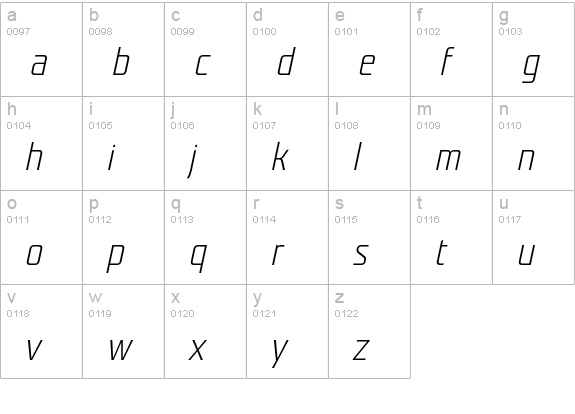
Teuton Hell Italic Font Details
Teuton Hell Italic is a distinctive, italic variant in the Teuton typeface family \xE2\x80\x94 well suited to design and typography projects.
Introducing Teuton Hell Italic, a captivating font that exudes an intense and rebellious energy. With its sharp and edgy letterforms, this font is the perfect choice for any project that demands a bold and daring aesthetic. Teuton Hell Italic stands out with its unique blend of strength and elegance, making it an ideal choice for branding, logo design, headlines, and more. Its slanted and italicized style adds a dynamic and contemporary touch to any design, while maintaining a sense of sophistication and professionalism. What sets Teuton Hell Italic apart is not only its striking appearance but also its accessibility. This remarkable font is freely available to download at FontsMarket.com, allowing designers, artists, and enthusiasts alike to unleash their creativity without any limitations. Whether you're working on a personal project or a commercial endeavor, Teuton Hell Italic will undoubtedly make a bold statement. Its versatility and adaptability make it suitable for a wide range of design applications, from posters and advertisements to websites and social media graphics. Embrace the power and allure of Teuton Hell Italic and let your imagination run wild. Elevate your designs to new heights with this captivating font that effortlessly combines strength, elegance, and freedom. Download Teuton Hell Italic today from FontsMarket.com and witness the transformative impact it will have on your creative endeavors.